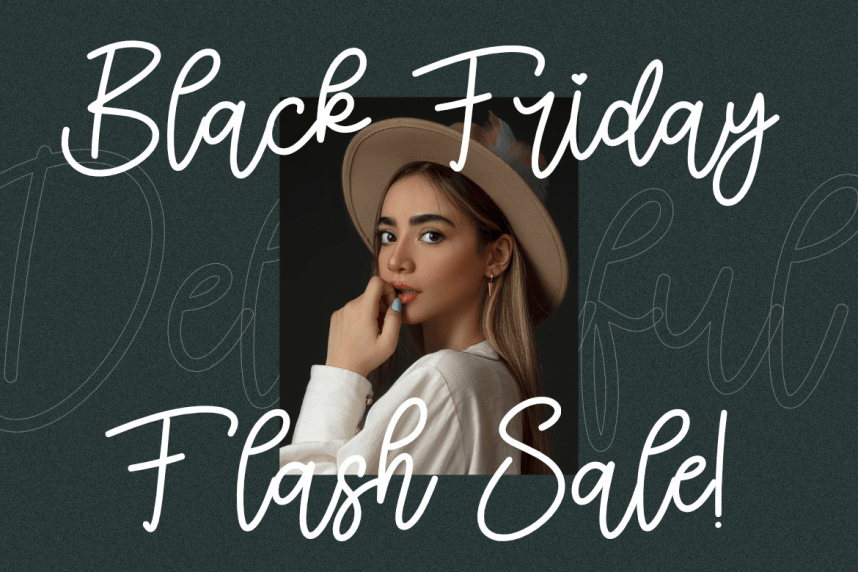
Delighful – Elegant Script Font
Delighful – Elegant Script Font is an elegant and expressive script font with a natural handwritten flow. Designed for clarity and character, this font brings a warm and stylish touch to a wide range of creative projects.
Its smooth curves and balanced strokes make it suitable for branding, logos, packaging, social media graphics, invitations, and editorial designs. Delightful works beautifully both as a headline font and as a supporting script for modern layouts.